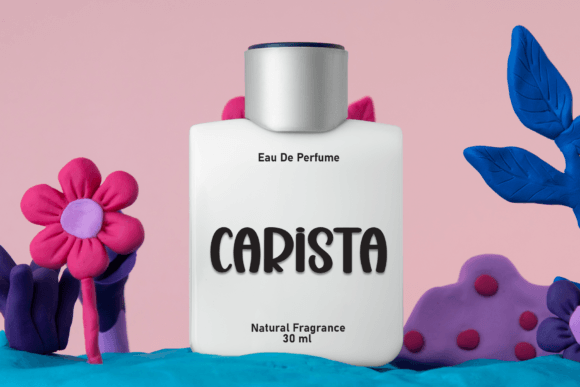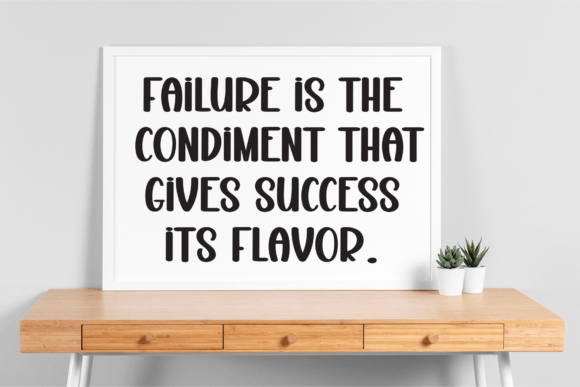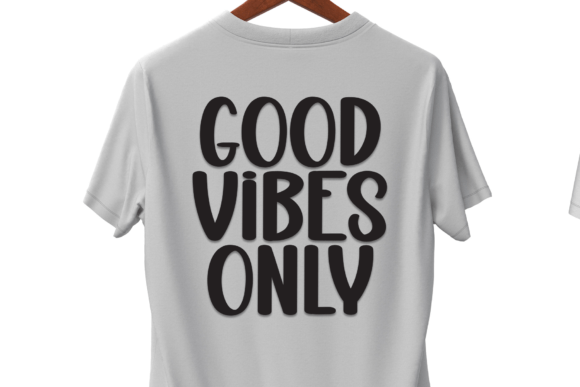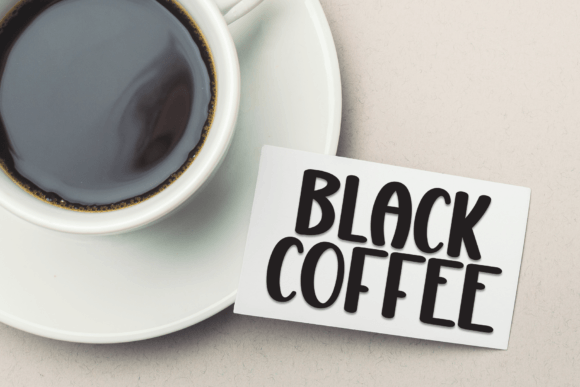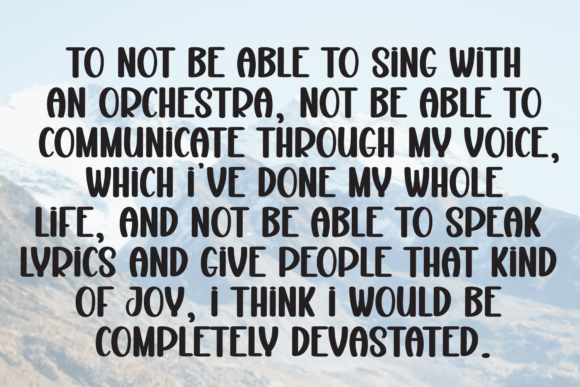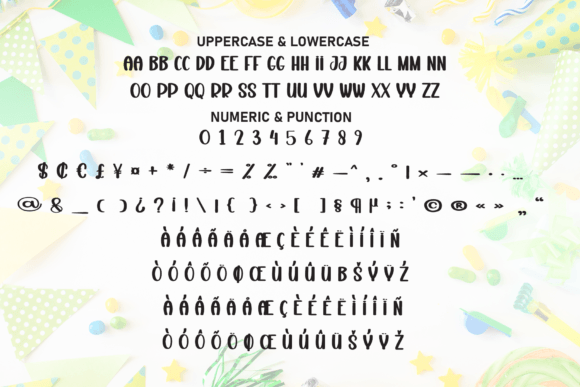
Introducing Birthday Font: The Ultimate Celebration Companion for Designers and Crafters
Are you tired of using the same old fonts for your birthday designs? Look no further! Birthday Font is here to revolutionize your creative projects with its bold, playful, and festive style. This exciting display font is specifically designed to bring fun and celebration to your designs, making it perfect for birthday cards, party invites, and joyful events!
The Perfect Font for Celebratory Designs
Birthday Font is a bold and vibrant typeface that instantly adds a touch of excitement to any message. Its playful letters are carefully crafted to make your designs feel festive and joyful, capturing the essence of celebration and fun. Whether you’re a designer, crafter, or DIY enthusiast, this font is sure to become your go-to choice for creating stunning birthday-themed projects.
- Bold and Playful Style: Birthday Font features bold and playful letters that add a touch of excitement to your designs.
- Festive and Joyful: This font is specifically designed to make any message feel festive and joyful, perfect for birthday cards, party invites, and joyful events.
- Easy to Read: Despite its bold style, Birthday Font is easy to read, making it perfect for headlines, titles, and short messages.
- Versatile: Use Birthday Font for a variety of design projects, including digital and print materials, such as birthday cards, party invitations, social media graphics, and more.
Why Choose Birthday Font?
With so many fonts available, why choose Birthday Font? Here are just a few reasons why designers and crafters love this font:
- Unique and Eye-Catching: Birthday Font is a one-of-a-kind typeface that adds a touch of personality to your designs, making them stand out from the crowd.
- Time-Saving: With Birthday Font, you can create stunning birthday designs in no time, saving you hours of design time.
- Customizable: Experiment with different colors, sizes, and styles to make Birthday Font your own and match your brand’s unique voice.
How to Use Birthday Font in Your Designs
Using Birthday Font in your designs is easy! Here are a few tips to get you started:
- Pair with Other Fonts: Combine Birthday Font with other fonts to create a unique and visually appealing design.
- Experiment with Colors: Try out different colors and gradients to match your brand’s style and make your design pop.
- Add Graphics and Illustrations: Use Birthday Font in combination with graphics and illustrations to create a festive and engaging design.
Need some inspiration for your next design project? Here are a few ideas to get you started:
- Birthday Cards: Create stunning birthday cards for friends and family using Birthday Font.
- Party Invitations: Design eye-catching party invitations that set the tone for a fun and festive celebration.
- Social Media Graphics: Use Birthday Font to create engaging social media graphics that spread joy and excitement.
- Custom Party Banners: Design custom party banners that make your celebration truly special.